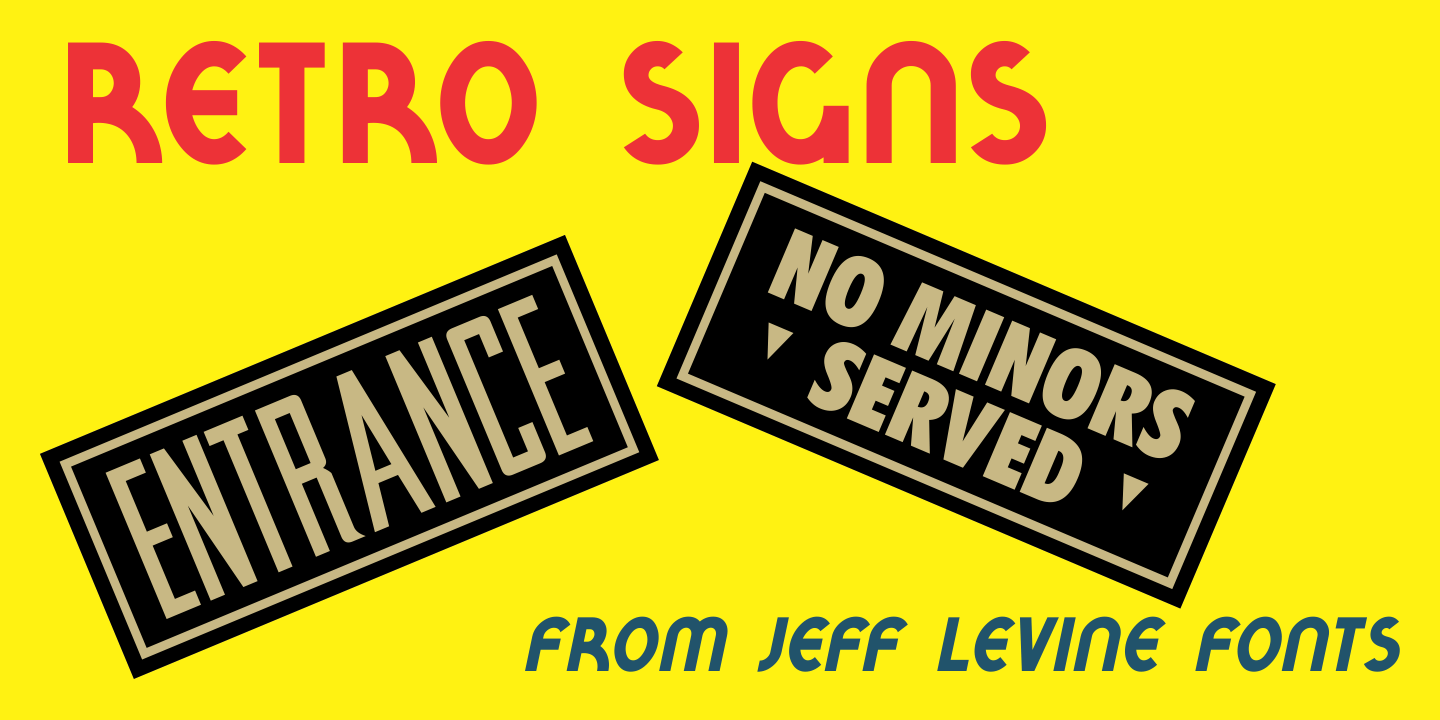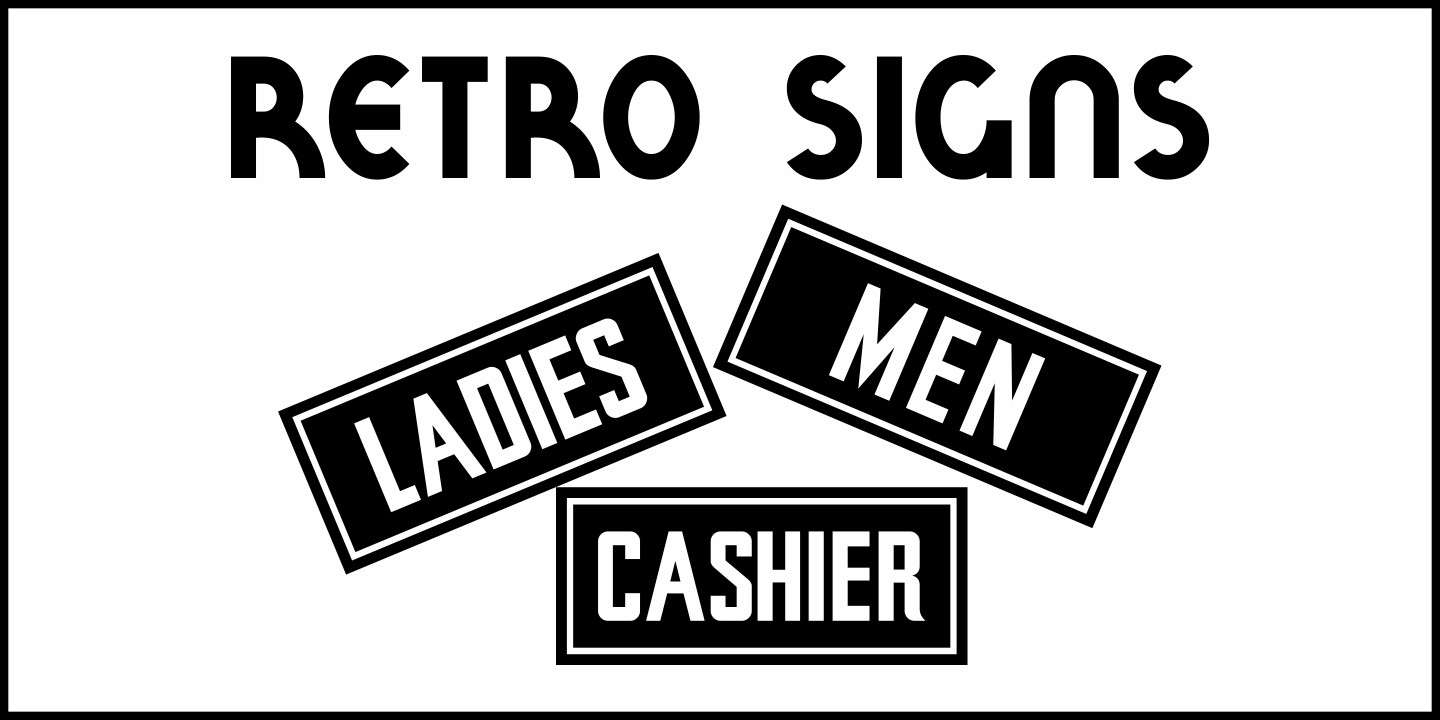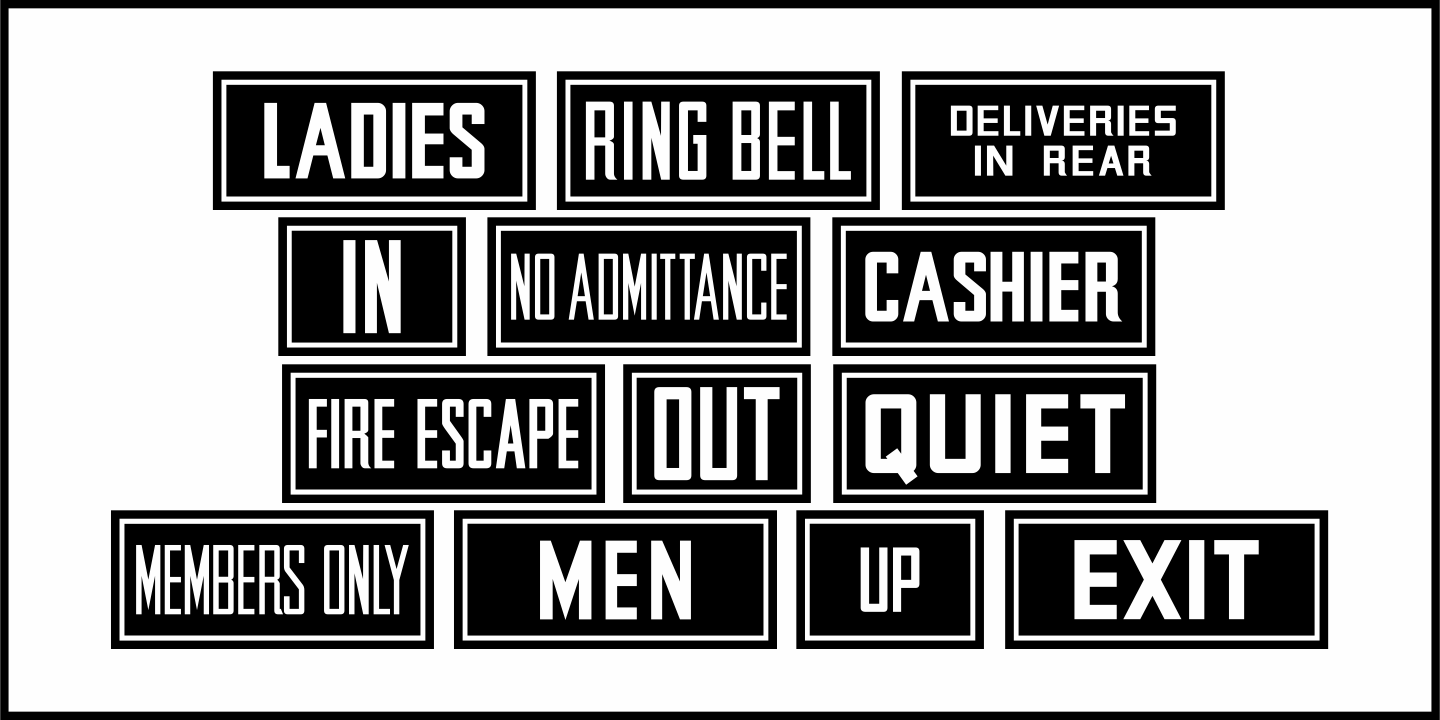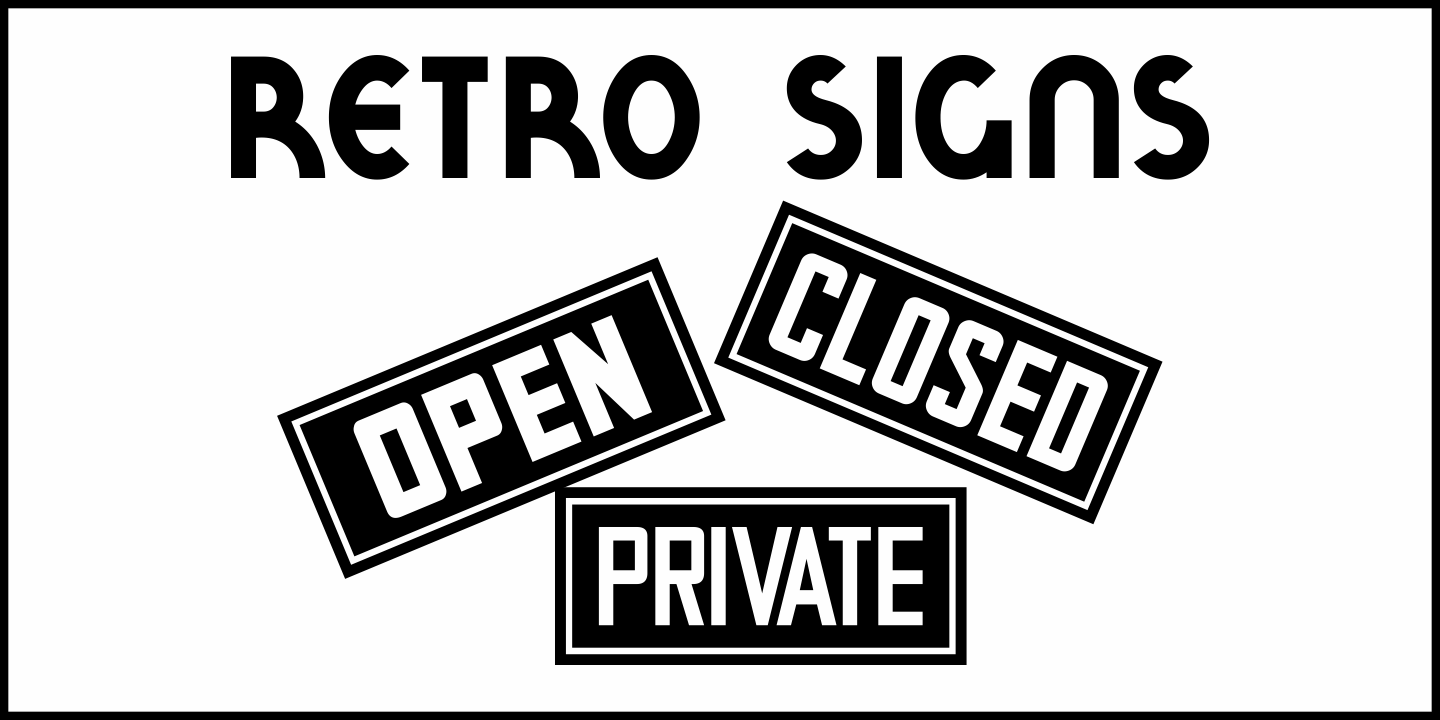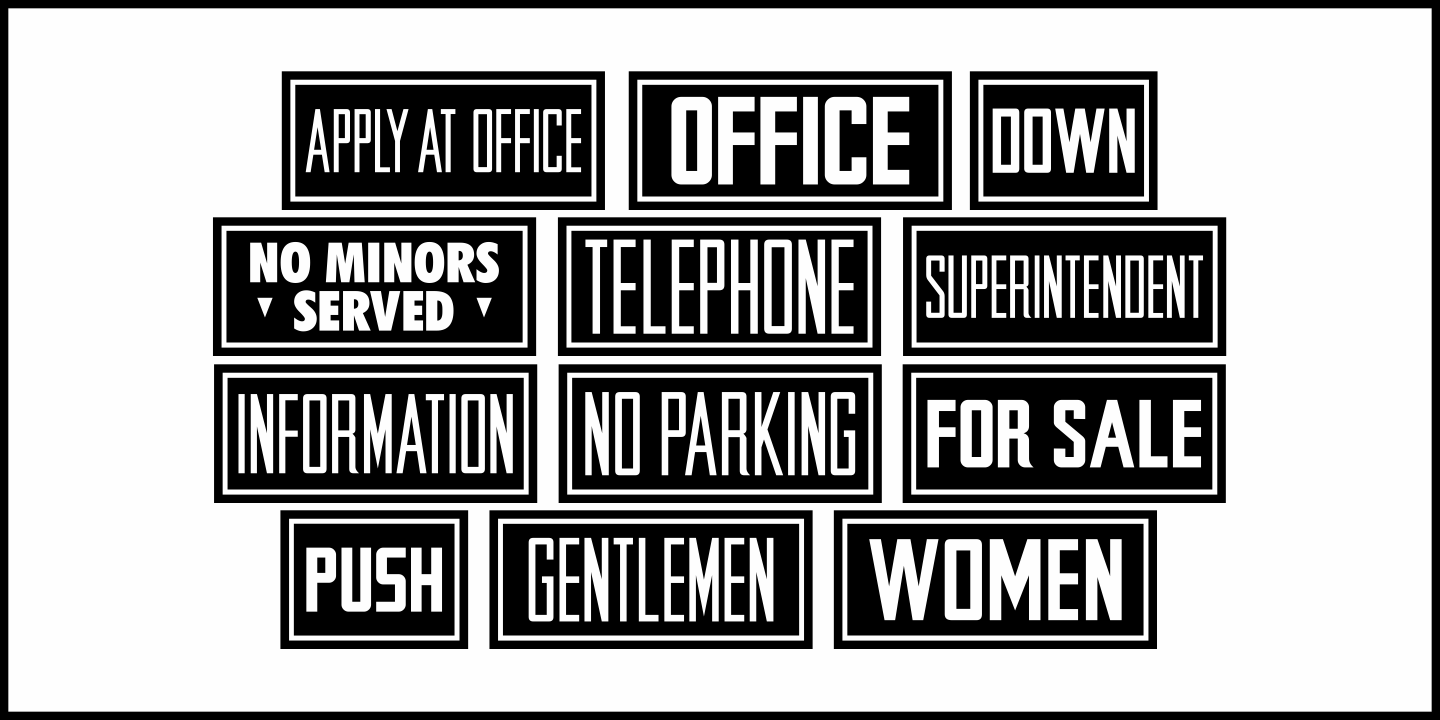
Retro Signs
Retro Signs JNL collects nearly 50 designs modeled from old water transfer sign decals once manufactured by the Duro Decal Company of Chicago, Illinois and adds in a generous amount of additional phrases newly-drawn in the same hand lettered style.
These vintage sign panels are perfect for creating nostalgic signage to fit projects centered around the 1950s and early 1960s.